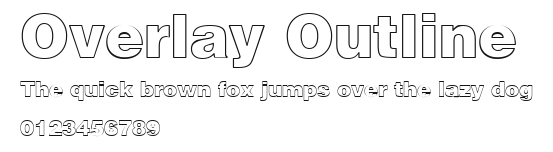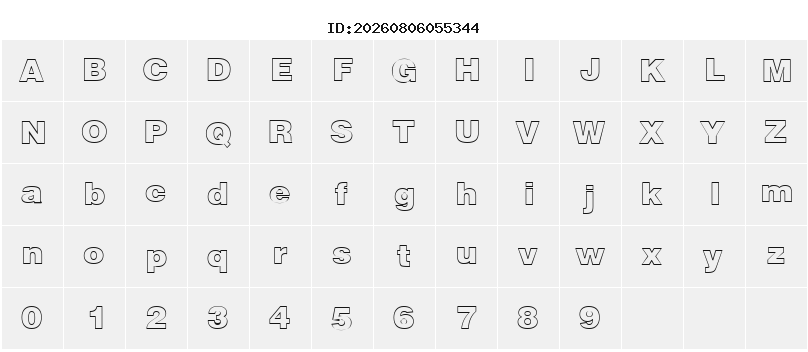
• Font Name: Overlay Outline
• Full Font Name: Overlay Outline
About Overlay Outline.ttf
Overlay Outline.ttf is a modern, elegant sans-serif font designed for ultimate readability and visual harmony. Perfect for branding, headlines, web design, and print materials.